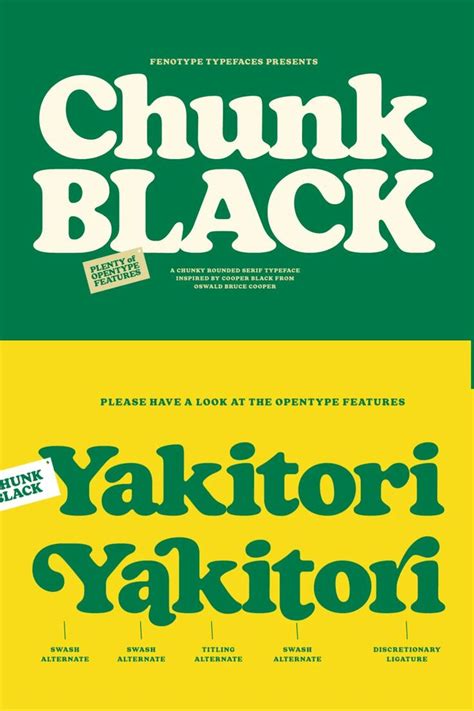
Chunk Black Font Family by Fenotype Font Bros
Chunk Black Font. It’s a retro and soft bold serif with a bunch of ligatures and alternates. Web we have 140 free chunky, black fonts to offer for direct downloading · 1001 fonts is your favorite site for free fonts since 2001
Web chunk black serif font. It’s a retro and soft bold serif with a bunch of ligatures and alternates. Web we have 140 free chunky, black fonts to offer for direct downloading · 1001 fonts is your favorite site for free fonts since 2001
It’s a retro and soft bold serif with a bunch of ligatures and alternates. Web we have 140 free chunky, black fonts to offer for direct downloading · 1001 fonts is your favorite site for free fonts since 2001 It’s a retro and soft bold serif with a bunch of ligatures and alternates. Web chunk black serif font.